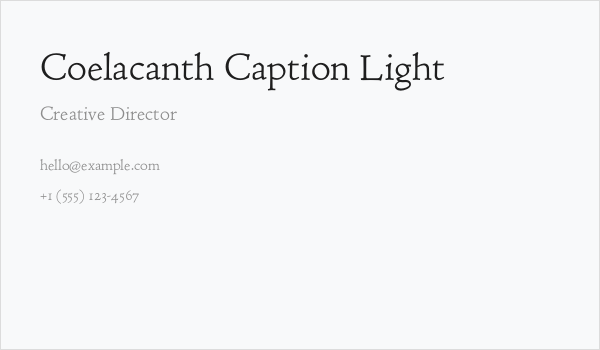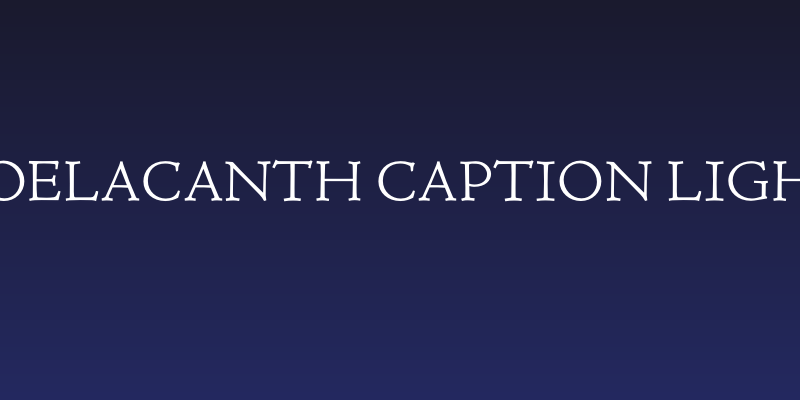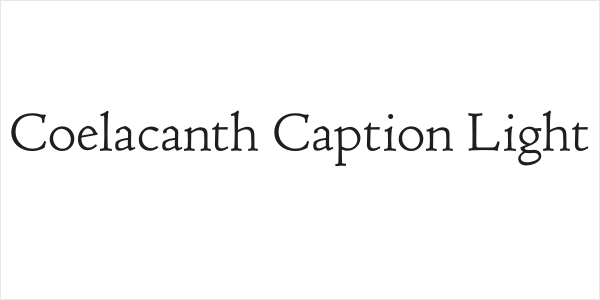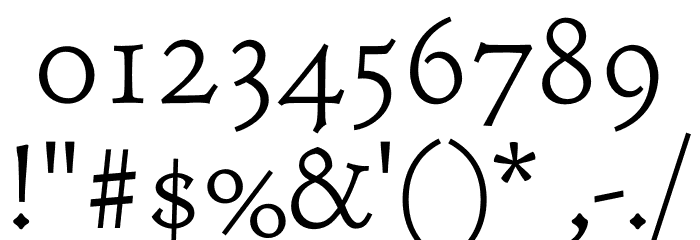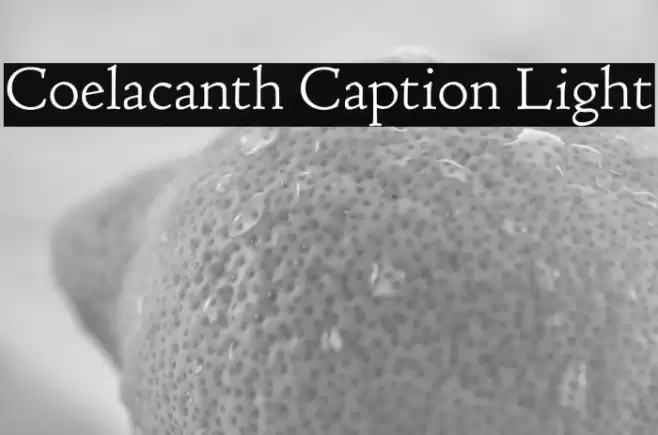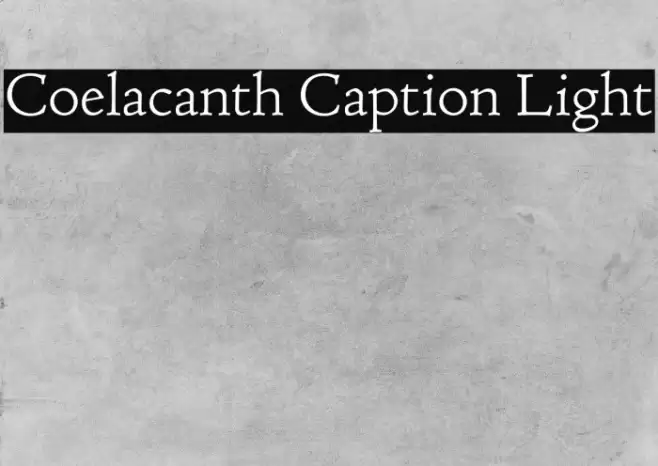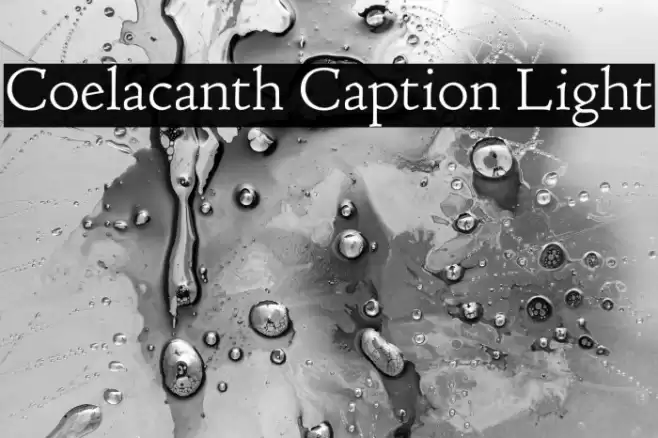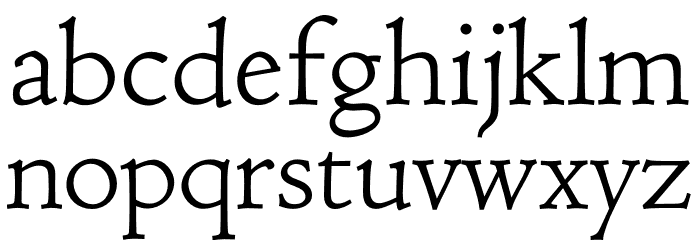
Coelacanth Caption Light Font
Coelacanth Caption Light Description
This font exhibits a classic serif style with a touch of elegance and sophistication. The characters are well-defined with subtle serifs that add a traditional feel. The uppercase letters are slightly taller, giving a sense of authority and formality. The lowercase letters maintain a consistent style, with smooth curves and a balanced appearance. The numerals are clear and easy to read, making them suitable for various applications. Special characters are distinct and complement the overall design, ensuring versatility in usage.
| Overall Style | Classic |
| Use Case | Body text, Headlines, Editorial design |
| Proposed Projects | Ideal for book typesetting, formal invitations, branding for luxury products, and editorial design. |